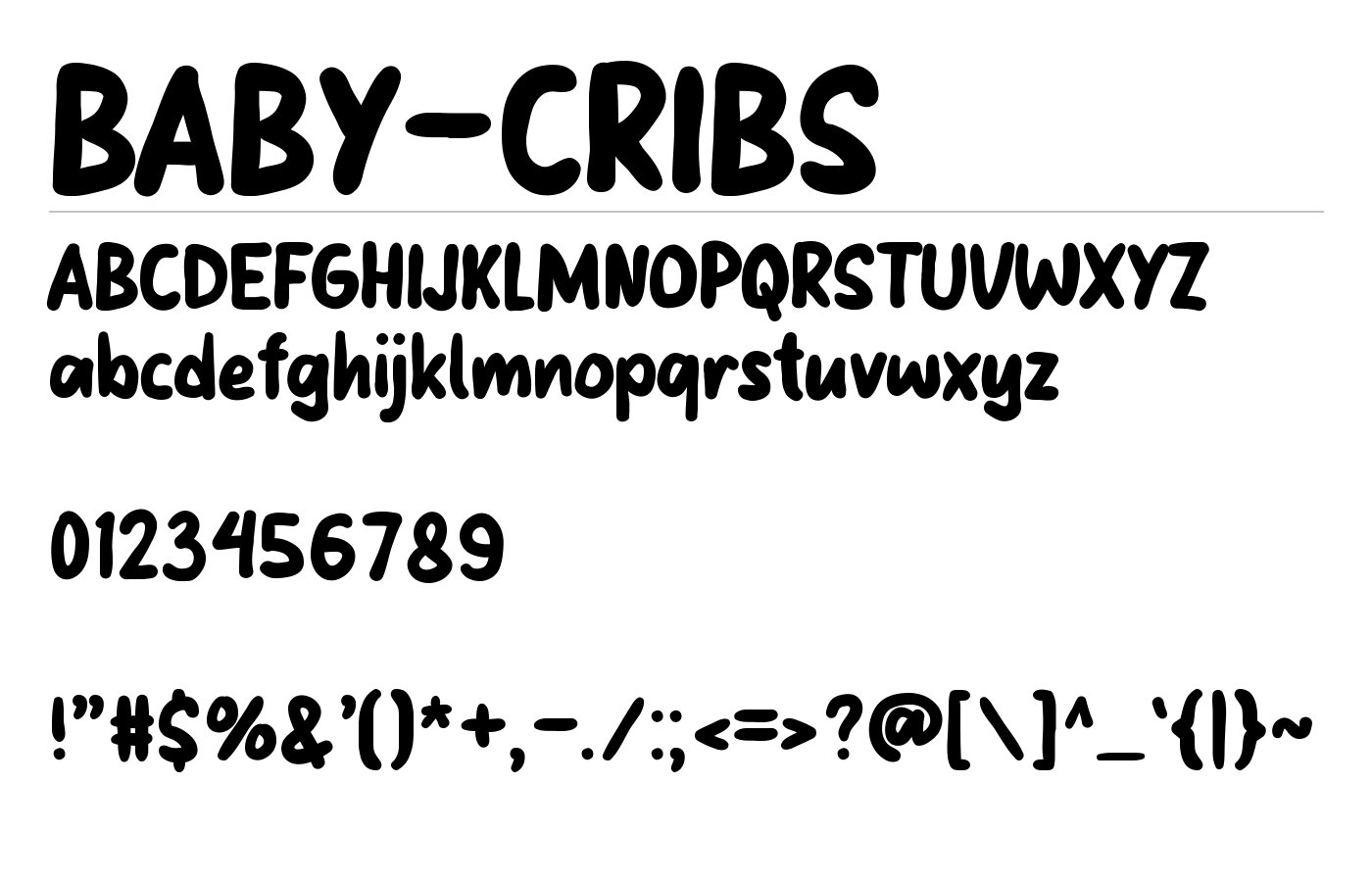
BABY-CRIBS is a playful and friendly sans serif font with a bold weight and rounded, hand-drawn letterforms that evoke warmth and approachability. Its informal style, combined with slightly irregular shapes and lively curves, makes it perfect for projects aimed at children, casual branding, or fun headlines where a sense of joy and spontaneity is desired. This font works well in packaging, posters, and websites that want to convey a cheerful, creative, and inviting atmosphere.
BABY-CRIBS Font
About BABY-CRIBS Font